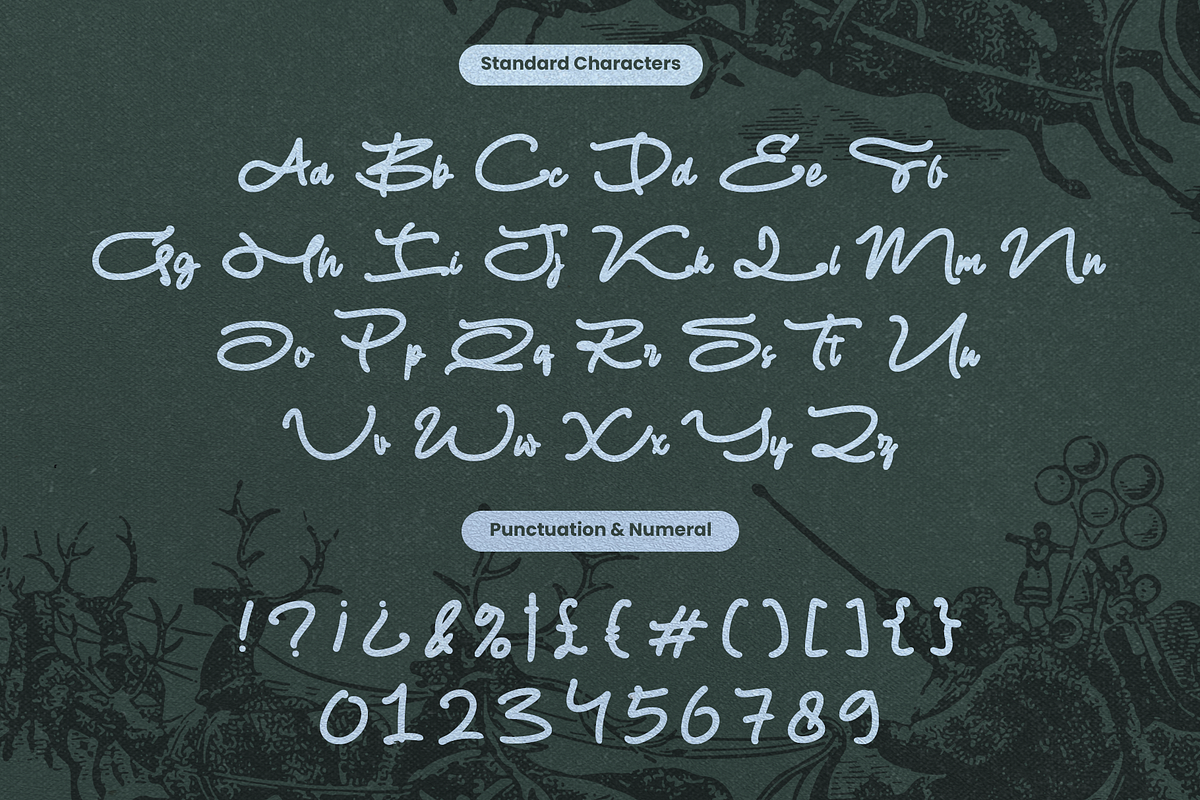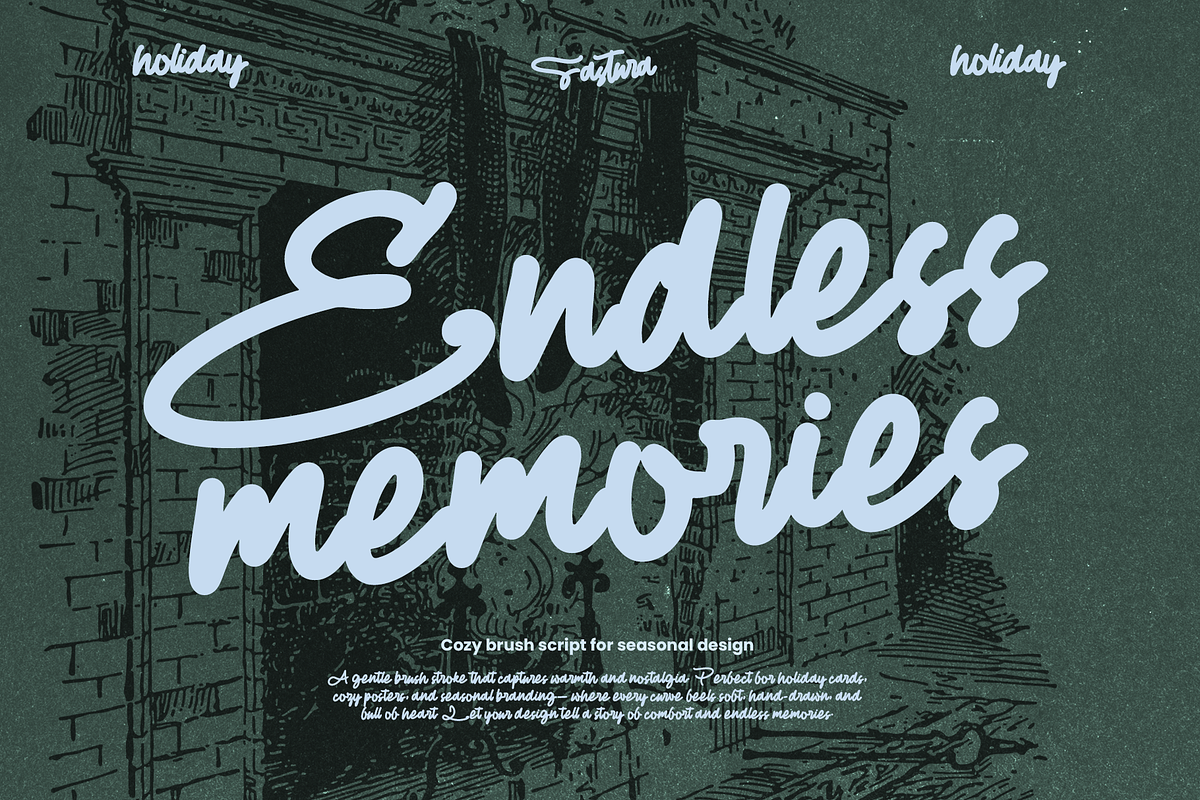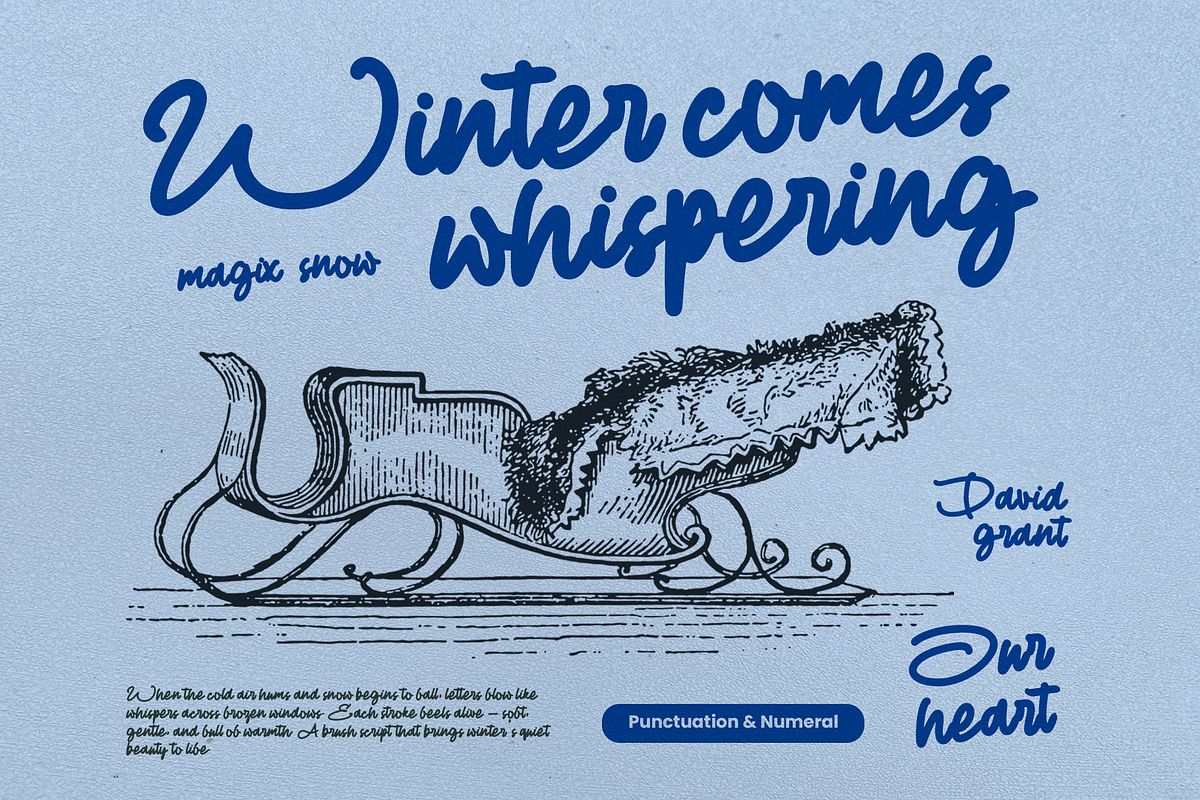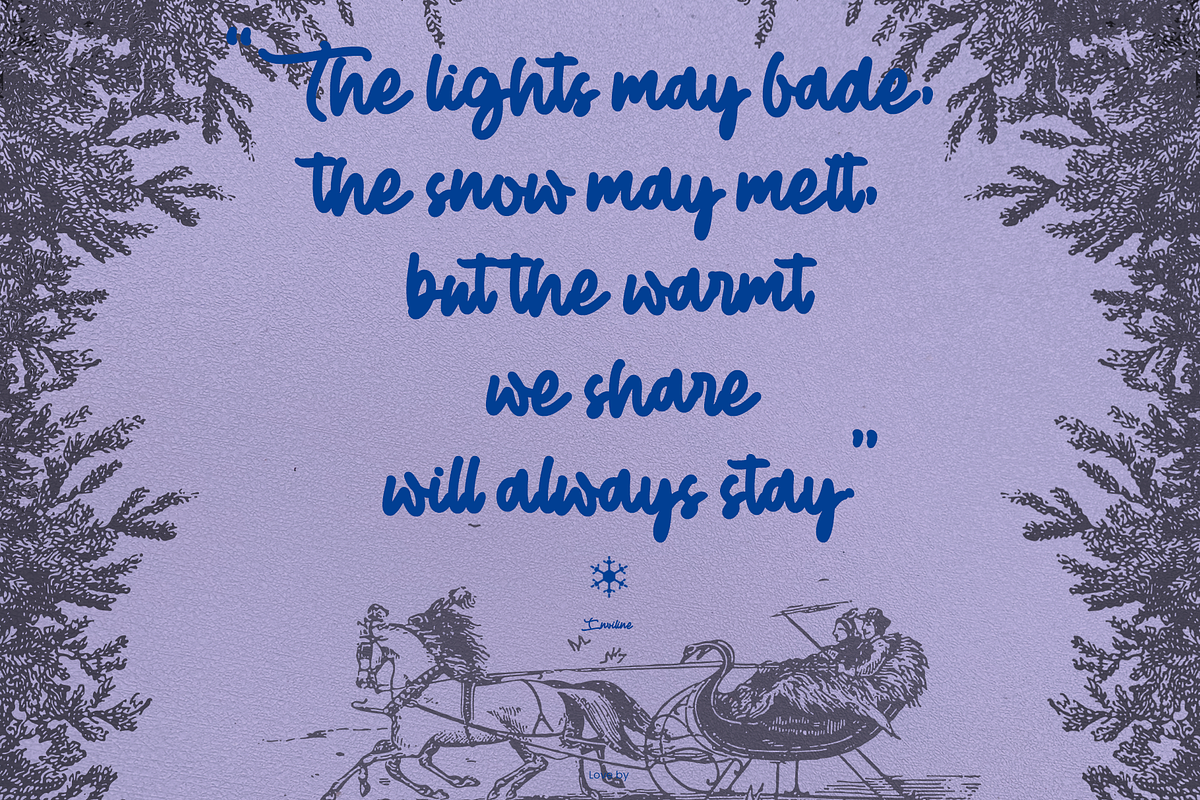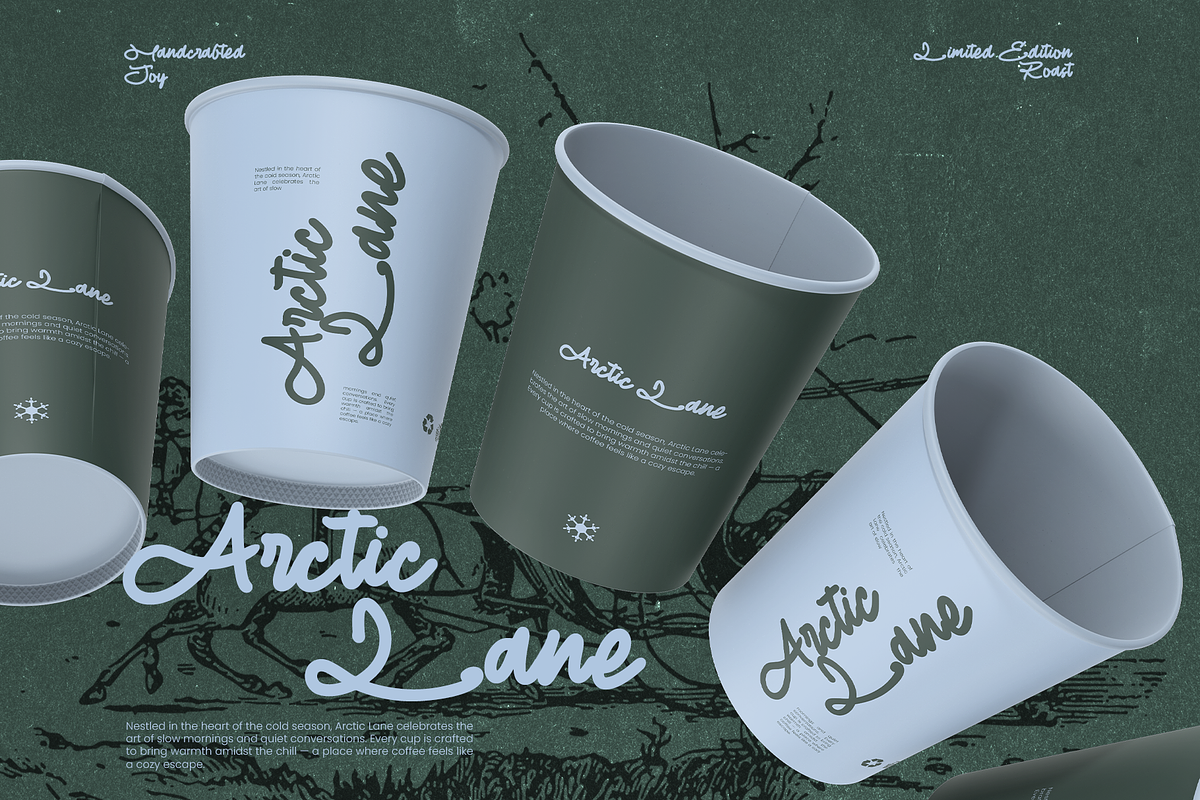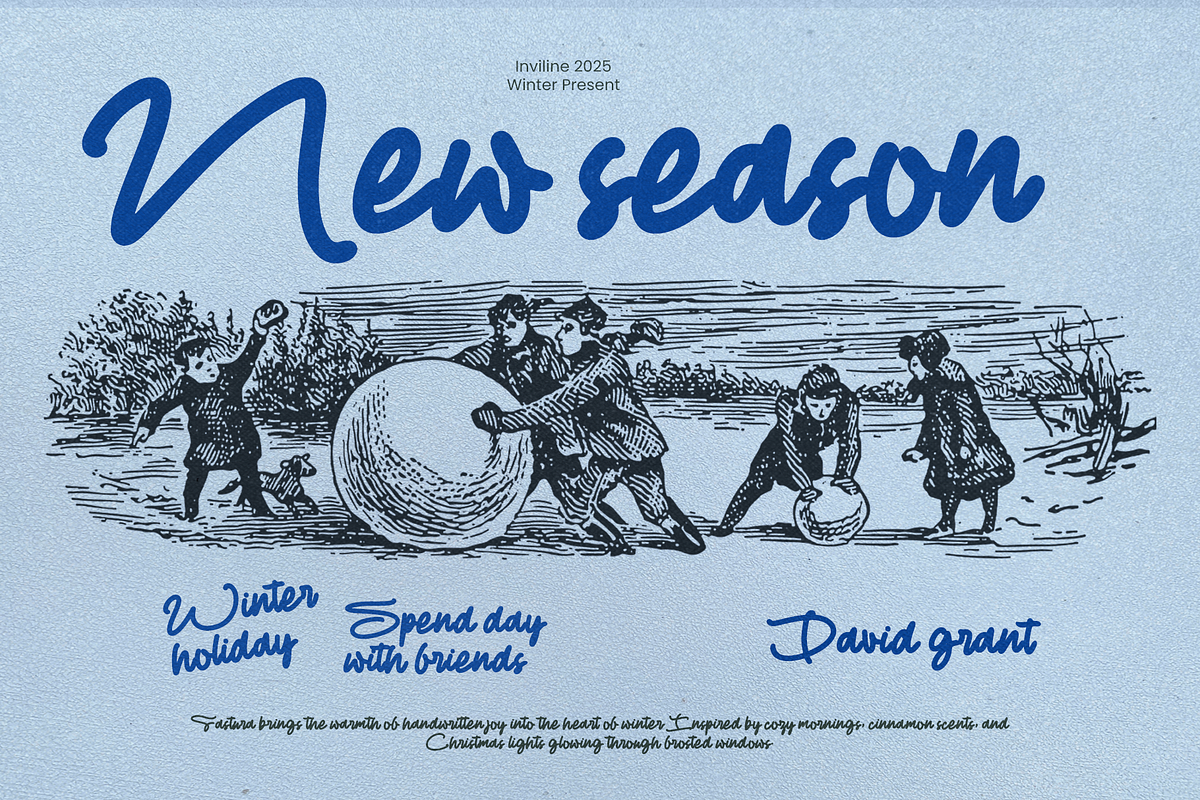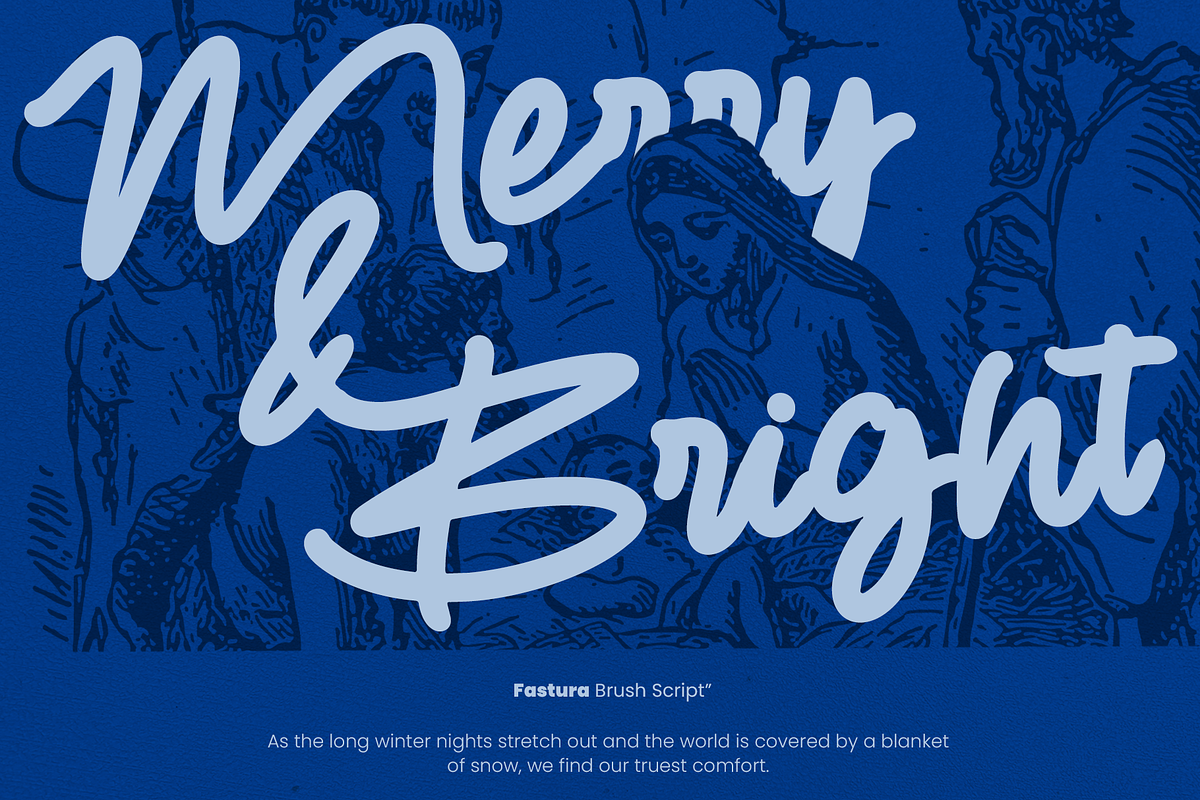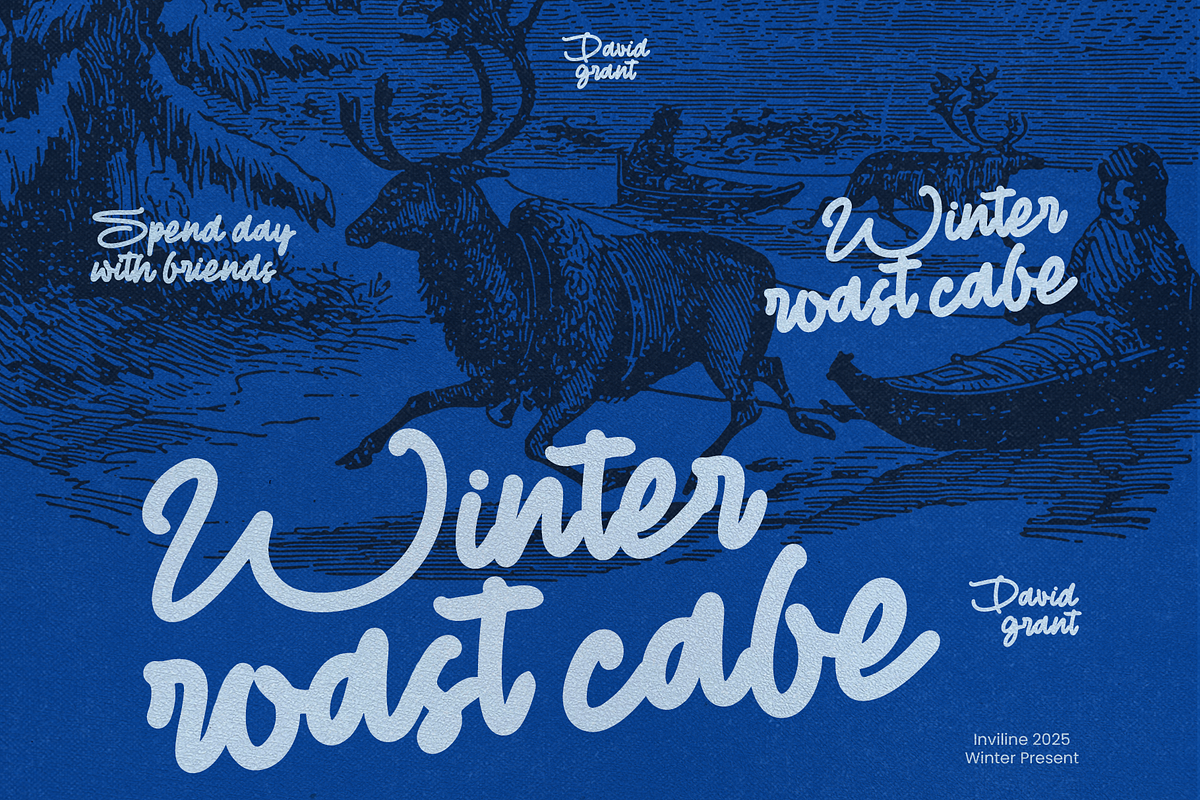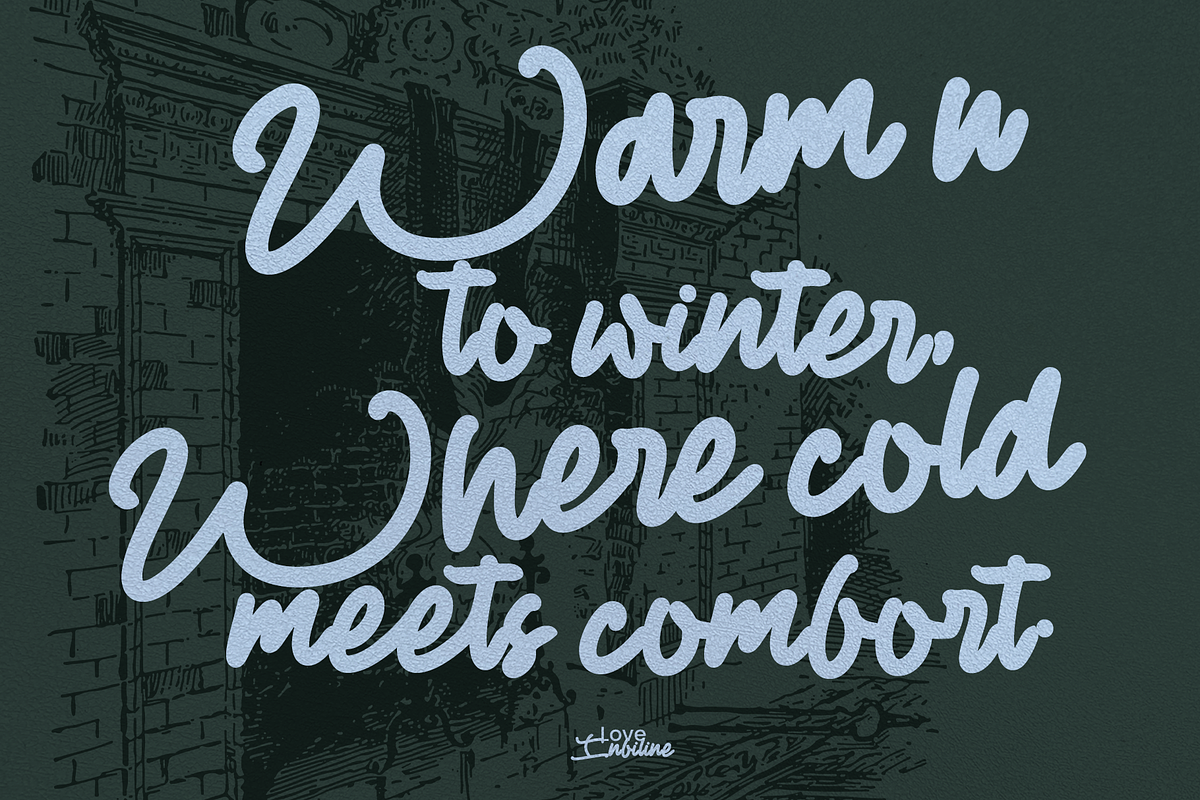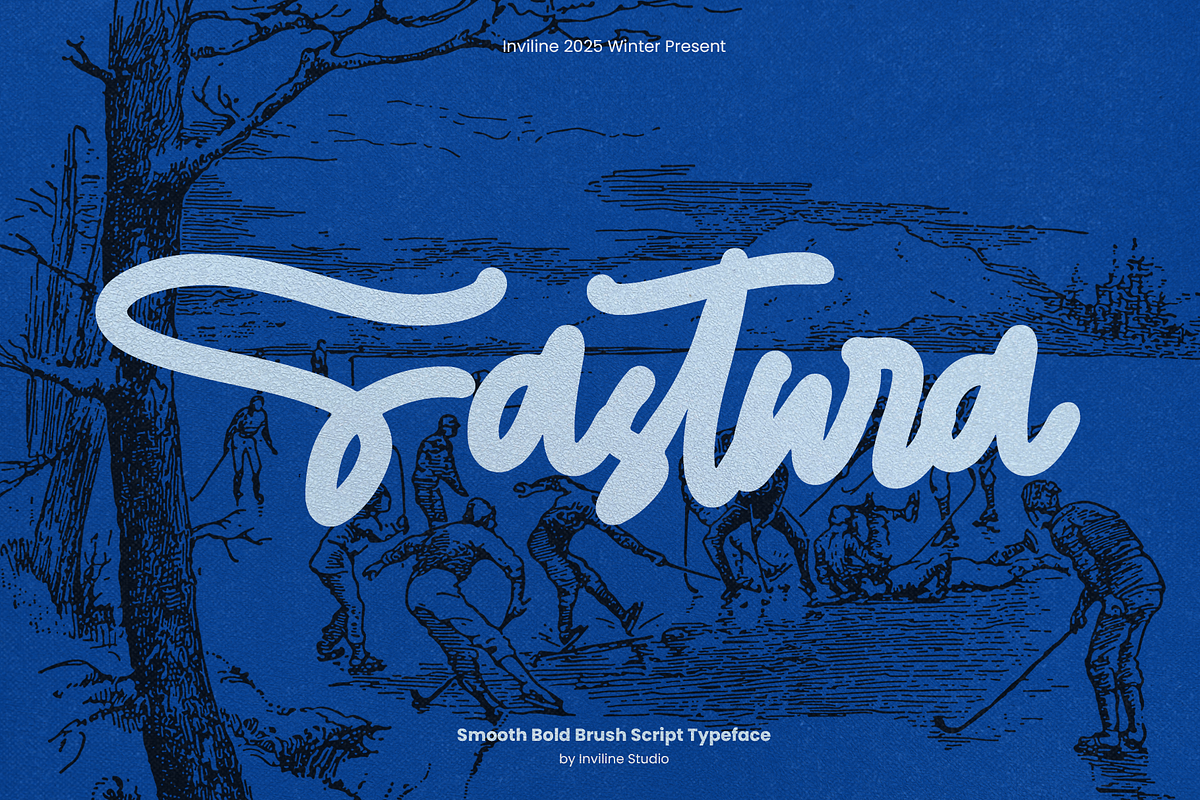
Fastura - Smooth Bold Brush Script
Sastura is a smooth and bold brush script font inspired by winter memories, nostalgic seasonal illustrations, handwritten greetings, and relaxed outdoor moments. Its flowing strokes, rounded forms, and natural movement create a warm handwritten personality with strong visual impact.
Designed to feel friendly, expressive, and slightly nostalgic, Sastura brings a handcrafted character to seasonal branding, posters, greeting cards, packaging, social media graphics, and creative editorial projects.
Sastura combines the energy of brush lettering with soft curves and balanced connections. Its expressive uppercase forms and flowing lowercase characters create a natural handwritten rhythm that feels confident without becoming overly rough or aggressive.
The font works especially well for large headlines, logos, quotes, short messages, and seasonal campaigns. It can be paired with vintage illustrations, textured paper, winter photography, muted colors, or bold contemporary layouts.
Use Sastura as the main display typeface, then pair it with a clean sans serif or classic serif font for captions, dates, descriptions, and supporting information.
Smooth bold brush script style
Natural handwritten movement
Soft, rounded, and expressive strokes
Flowing uppercase and lowercase characters
Friendly and nostalgic visual personality
Strong readability at medium and large sizes
Complete uppercase and lowercase alphabet
Numerals, symbols, and punctuation
Ideal for headlines, names, logos, and short phrases
Works well with seasonal and lifestyle imagery
Easy to pair with serif and sans serif typefaces
Suitable for outlines, shadows, and textured treatments
Winter greeting cards
Seasonal branding
Christmas and holiday graphics
New Year campaigns
Logo and wordmark design
Outdoor lifestyle branding
Travel posters
Winter event posters
Product packaging
Beverage labels
Café and restaurant branding
Quote designs
Photography overlays
Editorial headlines
Magazine covers
Book covers
Invitations
Postcards
Stationery design
Sticker graphics
Merchandise designs
YouTube thumbnails
Promotional banners
Nostalgic visual identities
Use Sastura at medium or large sizes to display its smooth brush details clearly. It is most effective for headlines, logos, names, quotes, product titles, and short promotional messages rather than long paragraphs.
Pair it with a clean sans serif font for supporting information. Adjust the tracking and line spacing when working with multiple lines, and allow additional space around long beginning or ending strokes.